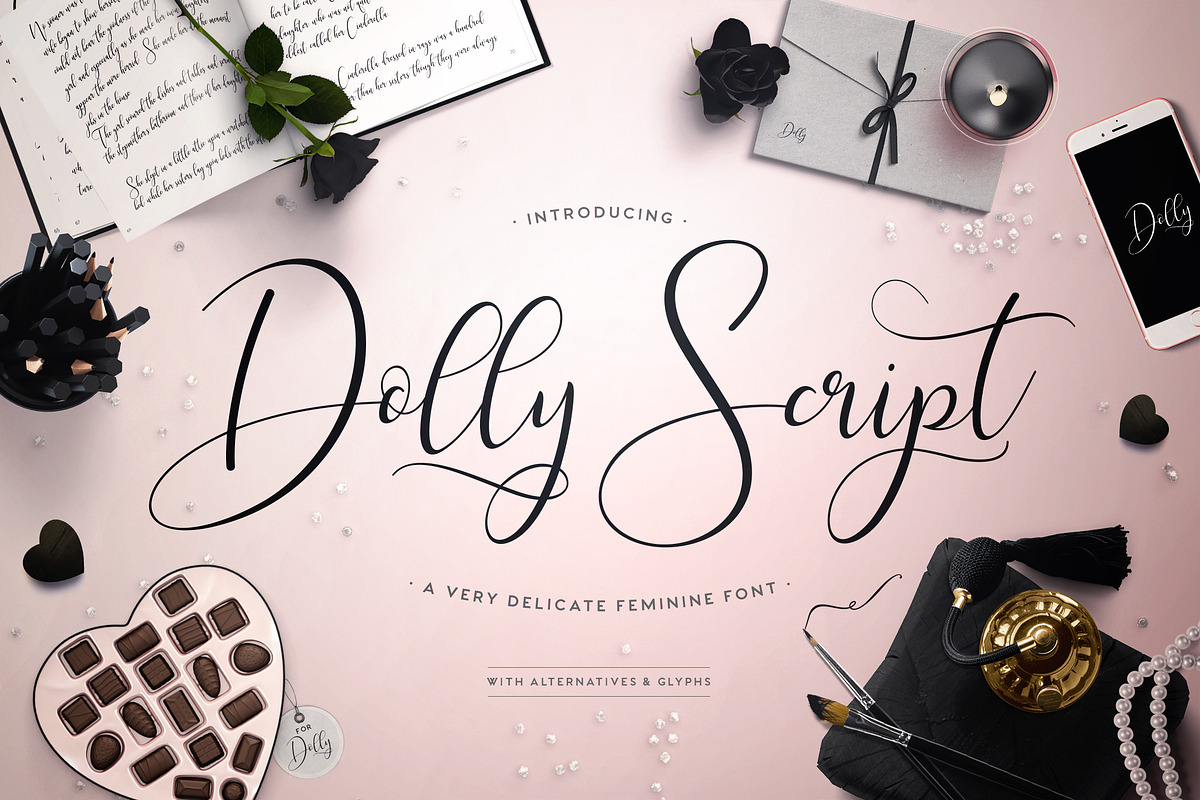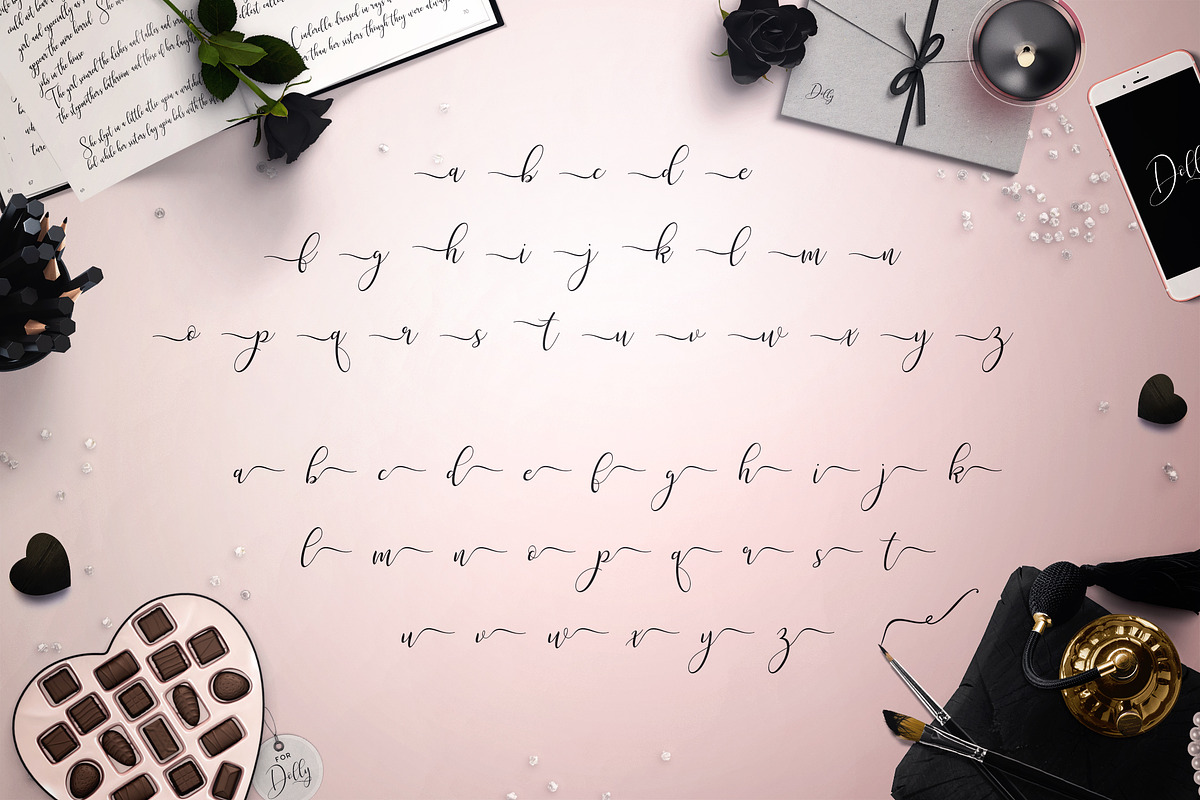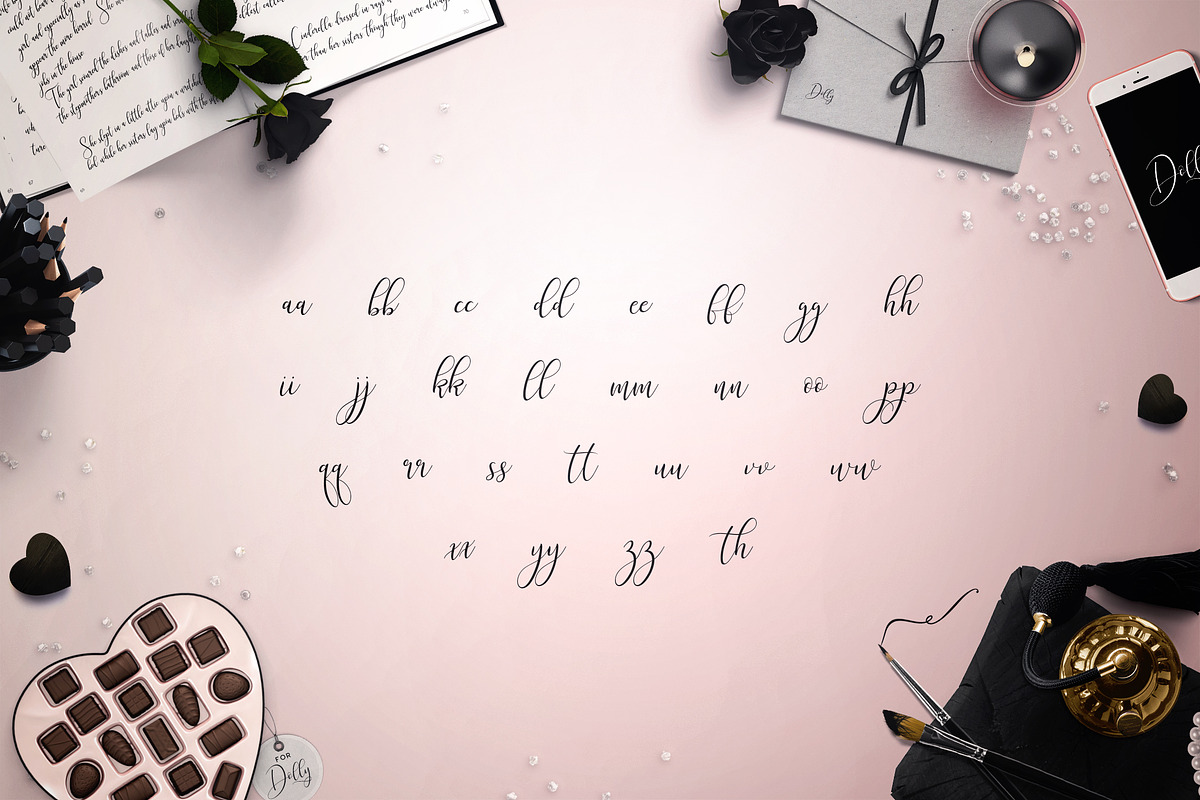
Dolly Script
Dolly Script by Font Bundles is a font selected for branding, posters, packaging, typography.
Why Dolly Script is worth a look
Dolly Script by Font Bundles fits naturally into Branding, posters, packaging, typography.